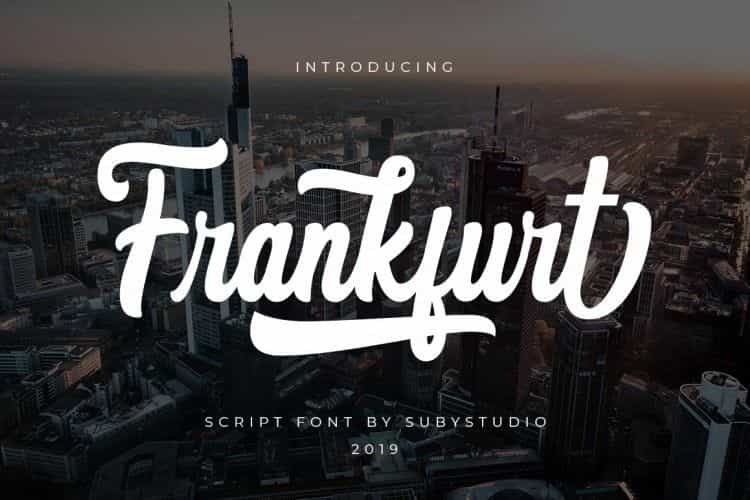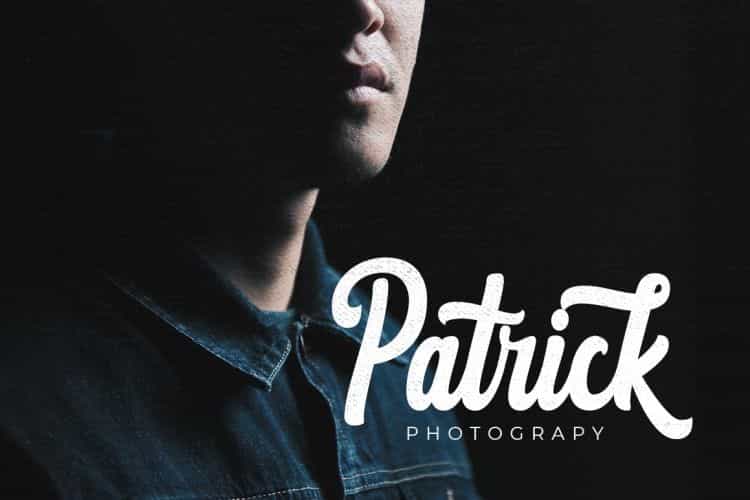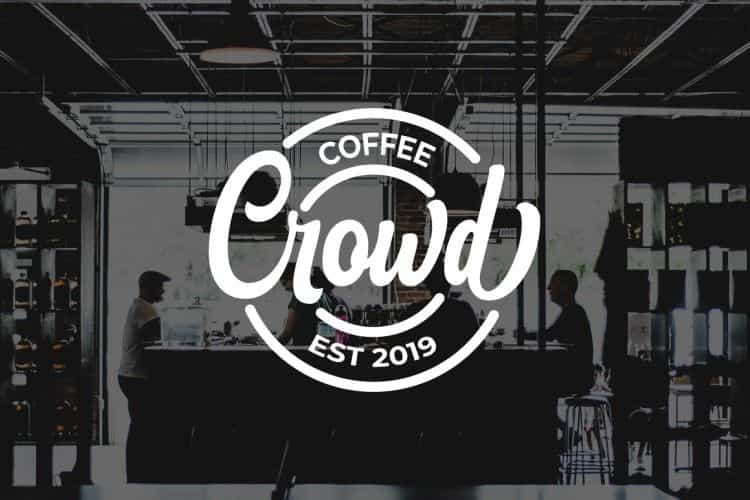
Frankfurt Font is special, thick-slated, clear, playful and stylish. It can be used in many ways, such as quotes text, wedding invitation, posters and you can make your cards and offer them to your friends and relatives.